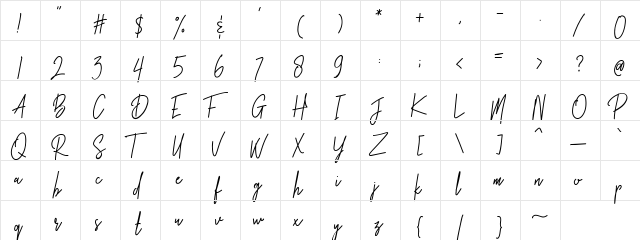
Brotherhood Regular
Design Context for Brotherhood Typeface
Brotherhood is a composed and adaptable typeface that performs quietly and consistently across a wide range of design contexts.